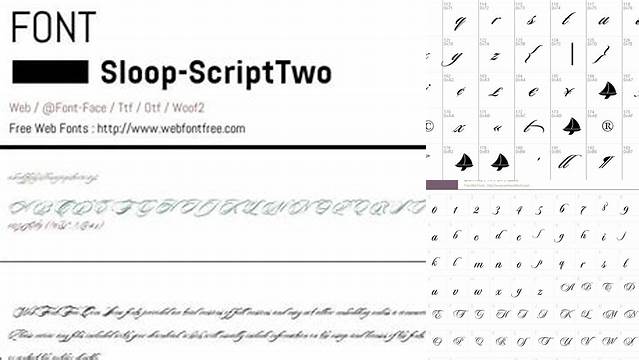
What is Sloop Script Two Font?
So, you're probably wondering, what exactly is Sloop Script Two? Well, guys, it's this super cool, flowing script font that's perfect for adding a touch of elegance and personality to your designs. Think wedding invitations, branding materials, social media graphics – anything that needs a bit of a stylish, hand-lettered feel. The Sloop Script Two font stands out because it’s not just another generic script; it has a unique character that makes it memorable. It’s got these smooth curves and stylish swashes that give your text a handcrafted vibe, which is awesome for making things feel personal and authentic. You can use this font to make your designs pop, whether you're working on a logo, designing a poster, or creating eye-catching social media content. Plus, the best part is that it is versatile, so it works well in both print and digital formats. It's designed to be legible, ensuring your message gets across clearly, while still looking beautiful. With its flowing lines and elegant form, the Sloop Script Two adds a touch of sophistication to any project, making it a go-to choice for designers aiming to create a lasting impression. If you want something that adds a touch of class, you know Sloop Script Two font will give you a very elegant look.
Tips for Using Script Fonts Effectively
Alright, guys, let's talk about some tips for using script fonts effectively. Script fonts like Sloop Script Two can be gorgeous, but they can also be tricky to use well. Here are a few things to keep in mind: 1. Use them sparingly: Script fonts are best used for headings, subheadings, and short bursts of text. They can be difficult to read in large blocks of text, so avoid using them for body copy. 2. Pair them with a legible font: When using a script font, pair it with a simple, readable font like Arial, Helvetica, or Times New Roman. This will help ensure that your overall design is easy to read. 3. Consider the context: Choose a script font that fits the tone and style of your project. Sloop Script Two is elegant and sophisticated, so it's great for wedding invitations, branding materials, and other upscale designs. 4. Adjust the spacing: Script fonts often have unique spacing requirements. Pay attention to the kerning (the space between individual letters) and the tracking (the overall space between all the letters). Adjust these settings as needed to improve the readability of your text. 5. Experiment with colors and effects: Script fonts can look amazing with different colors, gradients, and effects. Try experimenting with different combinations to find the perfect look for your project. Using the Sloop Script Two font effectively requires these considerations to achieve the best results.